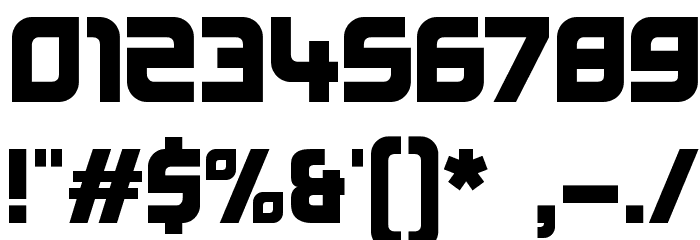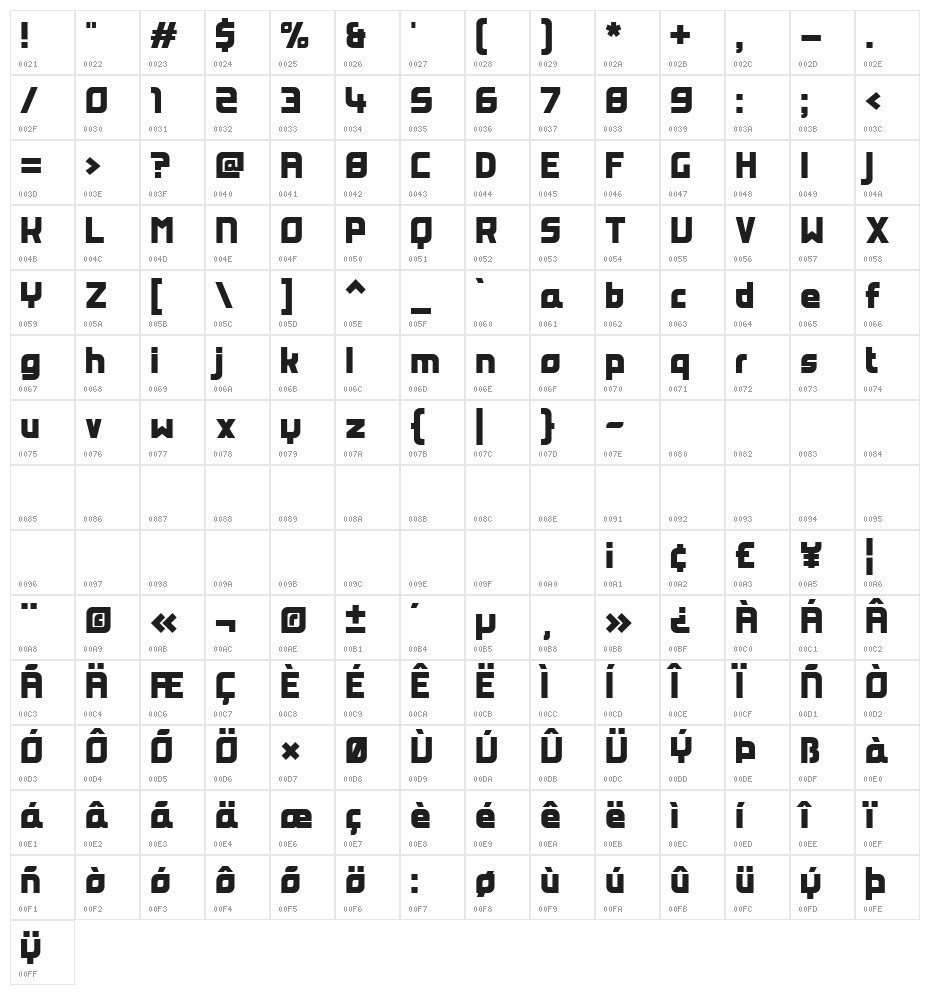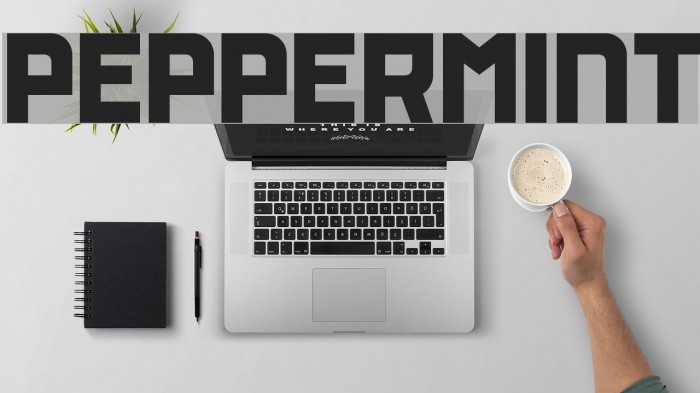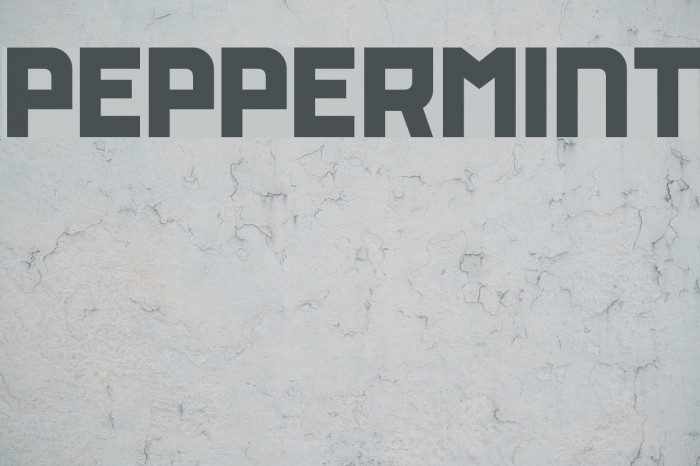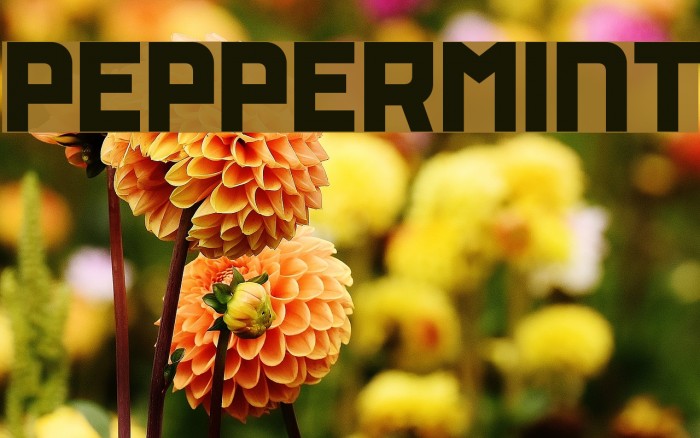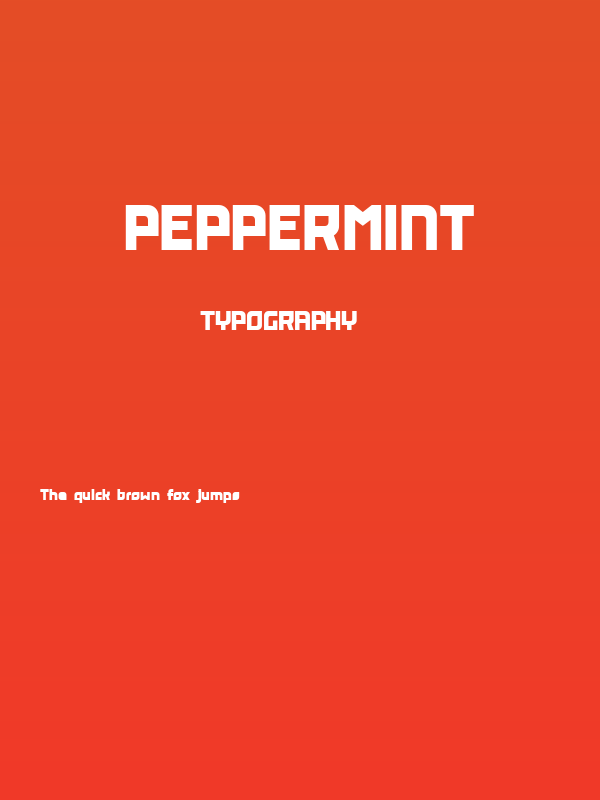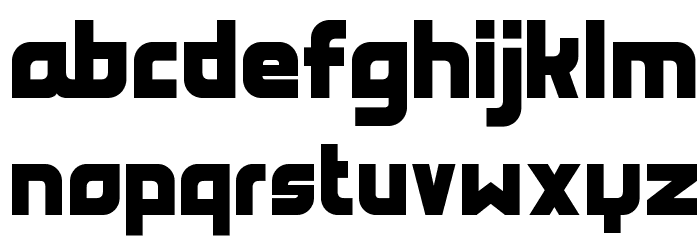
PEPPERMINT Font
PEPPERMINT Description
This font features a bold and geometric design with a strong presence. The characters are constructed with thick, uniform strokes that create a sense of stability and modernity. The uppercase letters are particularly striking, with a blocky appearance that commands attention. The lowercase letters maintain the same boldness, ensuring consistency throughout the typeface. Numbers and special characters are equally robust, making them suitable for a variety of applications. The overall style is clean and contemporary, with a slight retro touch that adds character.
| Proposed Projects | Ideal for branding, posters, headlines, and any project requiring a strong visual impact. |